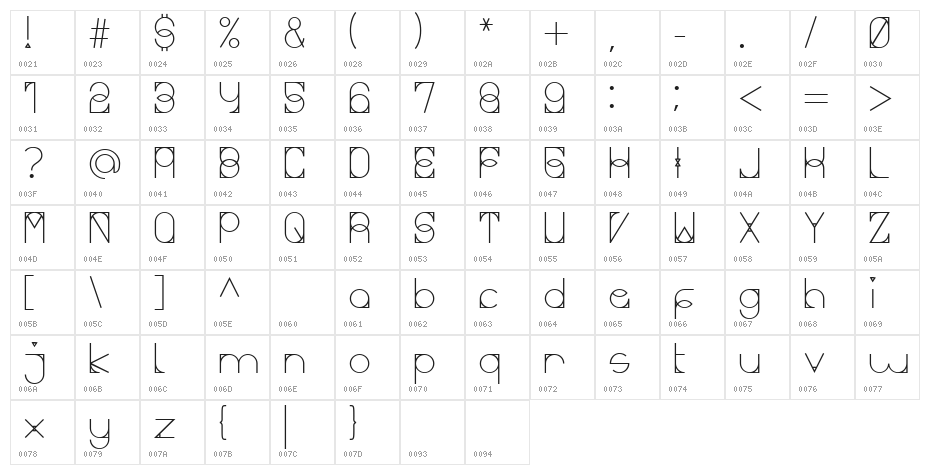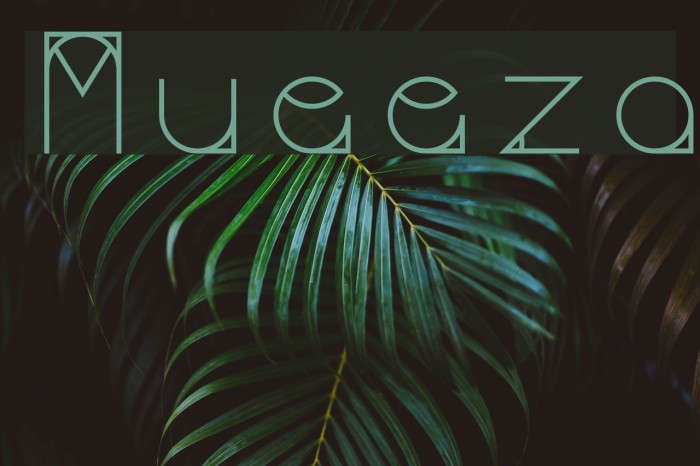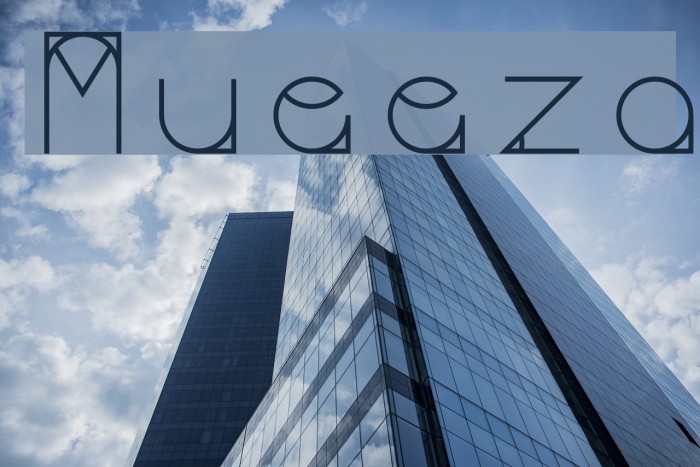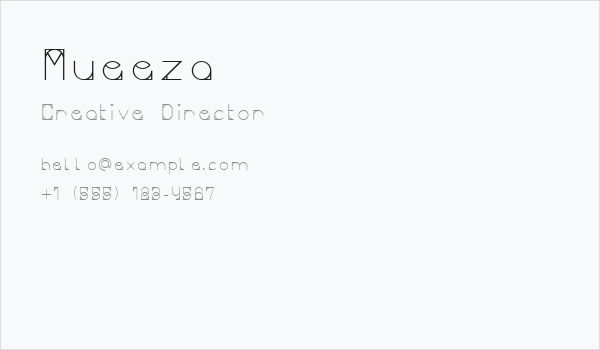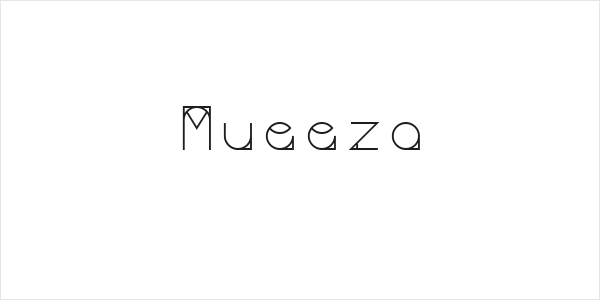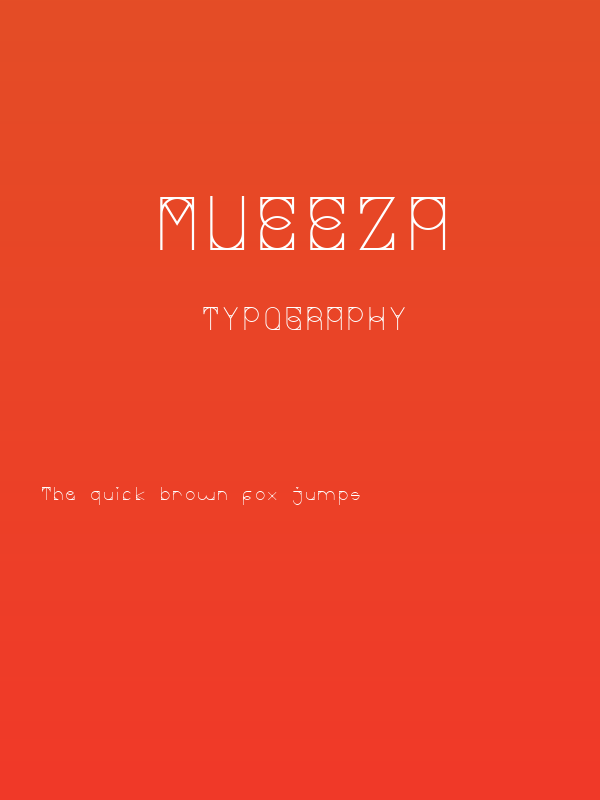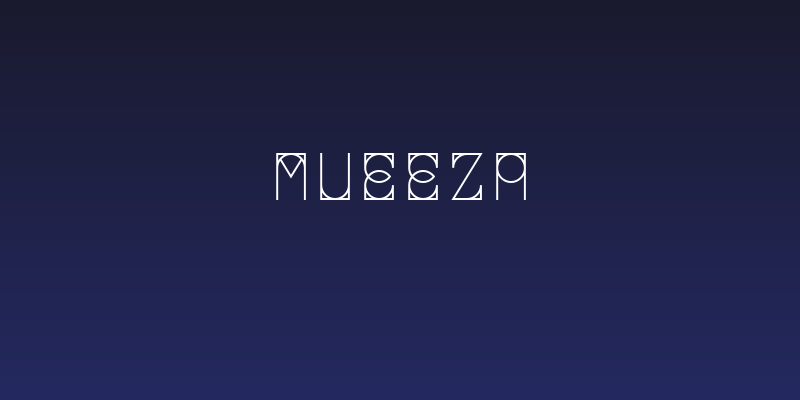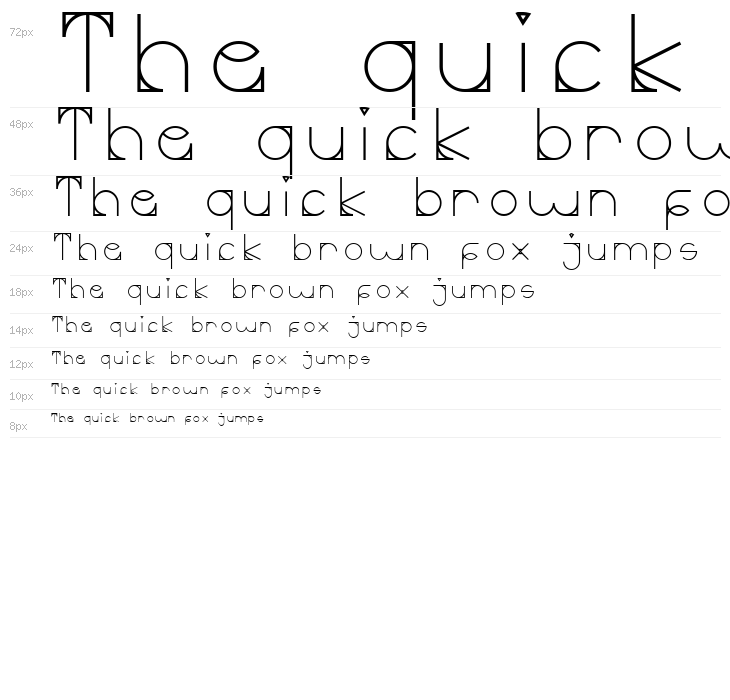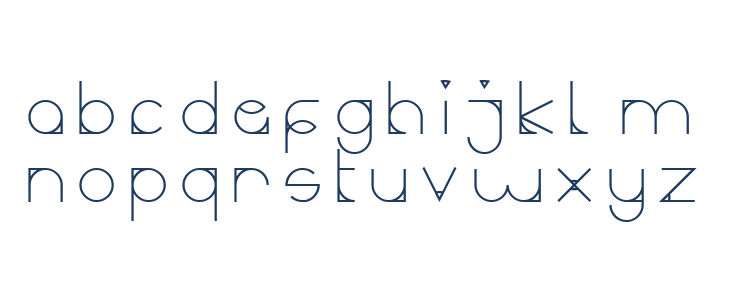
Mueeza Font
Mueeza Description
This font features a unique and modern geometric design, characterized by its thin lines and angular shapes. The uppercase letters exhibit a distinct style with sharp corners and a futuristic aesthetic, while the lowercase letters maintain a consistent geometric form. Numbers and special characters follow the same design principles, ensuring a cohesive look across all characters. The font's minimalistic approach and clean lines make it suitable for contemporary designs, offering a fresh and innovative appearance.
| Proposed Projects | Ideal for branding, logos, modern posters, and digital media projects that require a futuristic and clean aesthetic. |